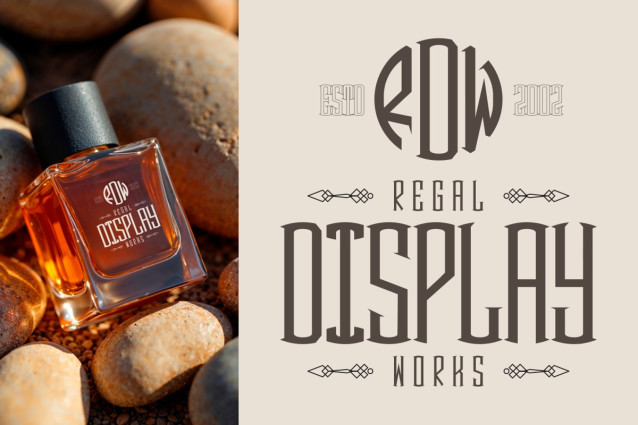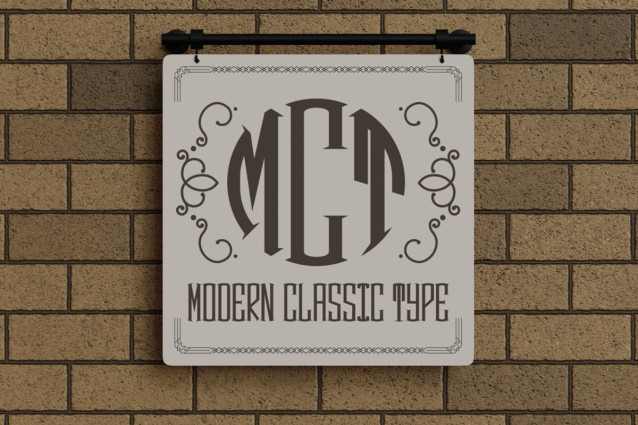
Royal Display Monogram Font
Royal Display Monogram Font is a tall and elegant display typeface designed to bring a regal, professional tone to modern branding. Each letter features slender vertical construction and sharp geometric angles, creating a sophisticated sense of height and symmetry. The balance between thin and medium strokes gives it a distinct art deco influence, while the subtle serifs and structured curves add a classic refinement. The font’s compact yet commanding presence makes it perfect for monograms, initials, and logos that aim to express authority and prestige. It combines classic typographic craftsmanship with a clean, contemporary edge suitable for today’s design needs.
This font is perfect for creating luxury branding identities, packaging, invitations, posters, and editorial layouts. Its refined structure enhances readability while maintaining an exclusive appearance that stands out in print or digital design. Royal Display Monogram Font works beautifully for logos, certificates, name cards, and high-end labels where tradition meets modernity. With its carefully designed rhythm and form, it adds sophistication to every word, ensuring a timeless and professional impression in every application.